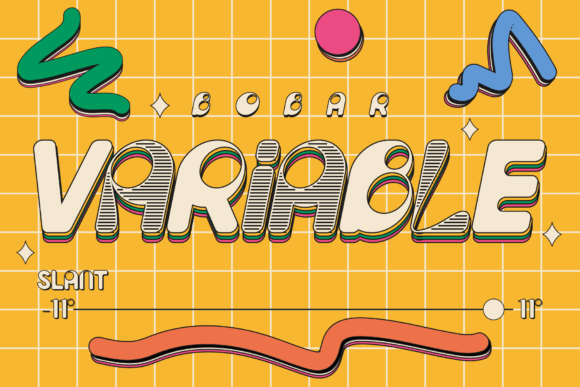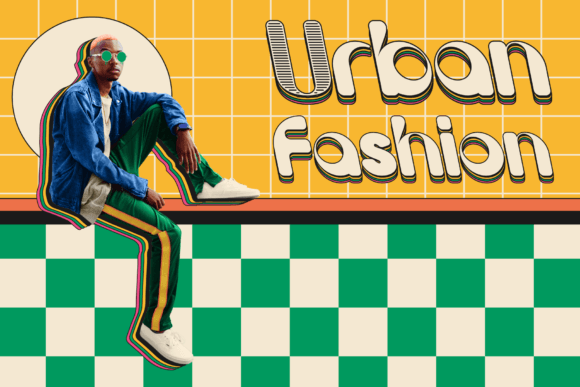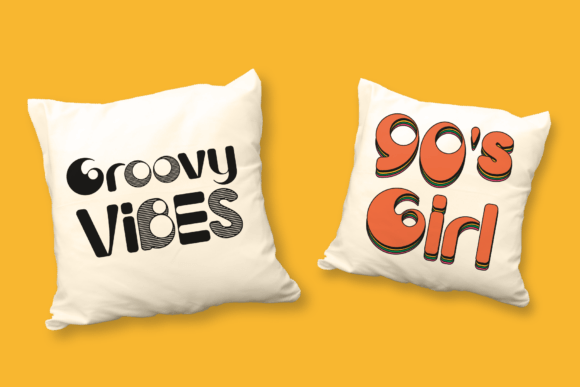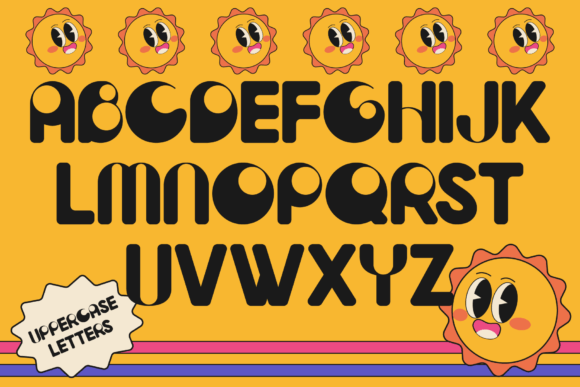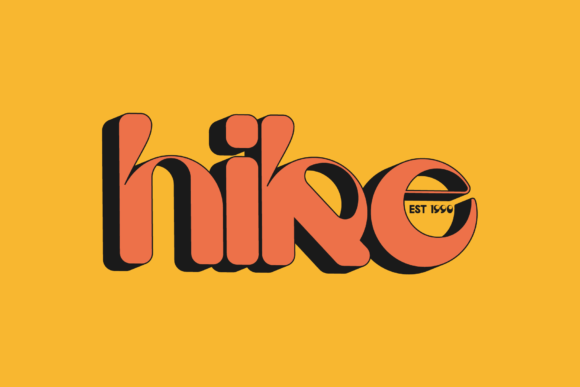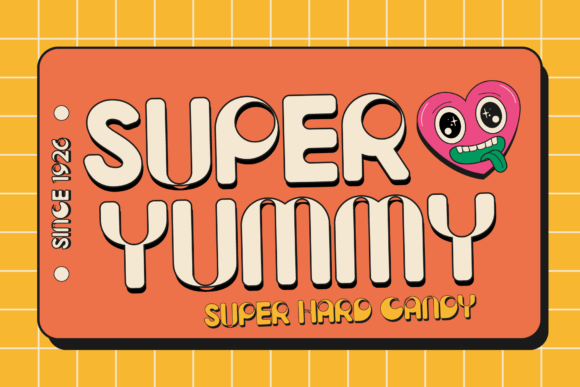
Bobar Font: The Ultimate Retro-Inspired Variable Font for Creative Projects
Are you looking for a font that can add a touch of retro flair to your designs? Look no further than Bobar Font, a groovy and eye-catching variable font that’s perfect for a wide range of creative projects. In this article, we’ll dive into the features and benefits of Bobar Font, and explore how it can elevate your branding, magazines, logos, product packaging, advertisements, and more.
What is Bobar Font?
Bobar Font is a retro-inspired variable font that’s designed to bring a fun and playful vibe to your designs. Its bold, chunky shape and groovy design make it a standout font that’s sure to grab attention. But what really sets Bobar apart is its versatility – it comes with both standalone fonts and a variable version, which allows you to manually adjust the slant to suit your design needs.
Key Features of Bobar Font
• Retro-inspired design: Bobar Font has a distinctly retro feel that’s perfect for designs that need a nostalgic touch.
• Variable font: The variable version of Bobar Font allows you to adjust the slant to create unique and customized designs.
• Standalone fonts: Bobar Font also comes with standalone fonts for those who prefer a more traditional approach.
• Creative alternate and engraved characters: Bobar Font features a range of creative alternate and engraved characters that can add an extra layer of interest to your designs.
Bobar Font is a versatile font that’s suitable for a wide range of creative projects, including:
• Branding: Use Bobar Font to create bold and eye-catching logos that will help your brand stand out.
• Magazines: Bobar Font is perfect for magazine headlines, titles, and pull-quotes, adding a touch of retro flair to your publication.
• Logos: Create unique and memorable logos with Bobar Font’s bold and chunky design.
• Product packaging: Use Bobar Font to add a fun and playful touch to your product packaging.
• Advertisements: Bobar Font is perfect for creating eye-catching advertisements that will grab attention and leave a lasting impression.
Why Choose Bobar Font?
So why choose Bobar Font for your next project? Here are just a few reasons:
• Unique and eye-catching design: Bobar Font’s retro-inspired design is sure to grab attention and add a touch of personality to your designs.
• Versatility: With both standalone fonts and a variable version, Bobar Font offers a range of options to suit your design needs.
• Creative freedom: With Bobar Font’s creative alternate and engraved characters, you’ll have the freedom to experiment and create unique designs that reflect your brand’s personality.
In conclusion, Bobar Font is a fantastic choice for designers and crafters looking for a retro-inspired variable font that can add a touch of personality to their designs. With its bold and chunky design, creative alternate and engraved characters, and versatility, Bobar Font is perfect for a wide range of creative projects. So why not give Bobar Font a try and see how it can elevate your designs?